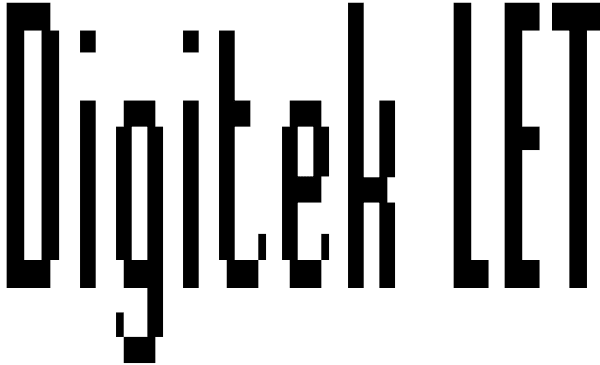
Digitek
This futuristic looking typeface was inspired by the appearance of coarse resolution computer bitmap output. Because it is condensed, Digitek is most effective in large headline applications with wide letter and word spacing. An excellent choice...